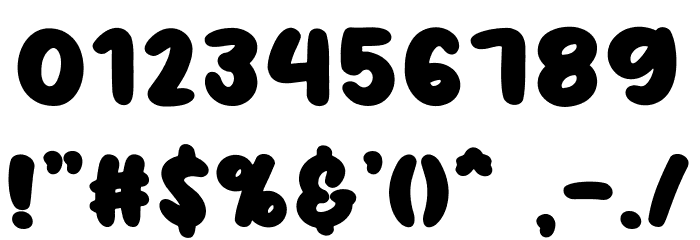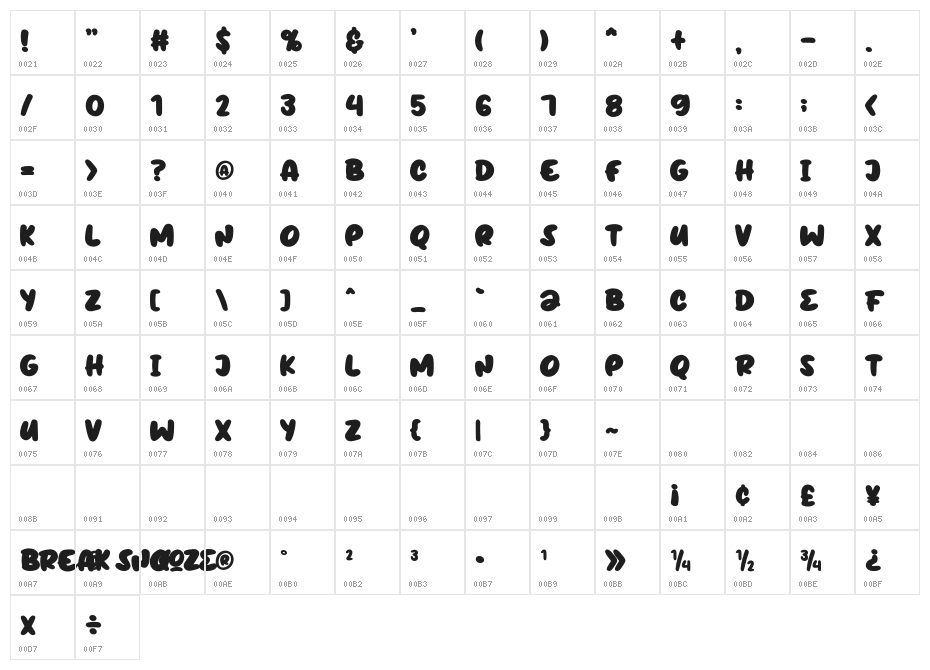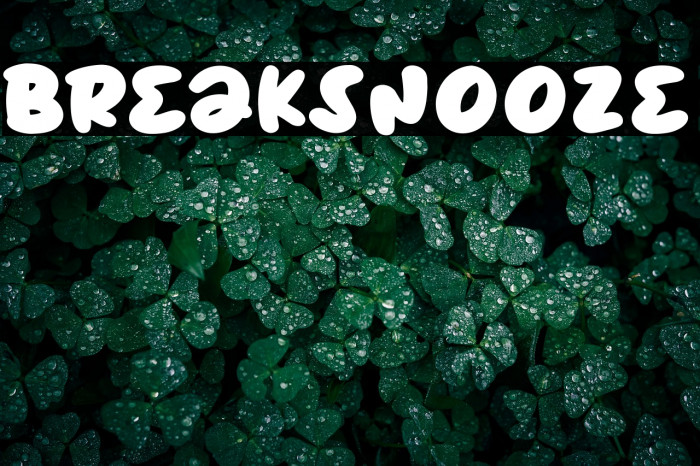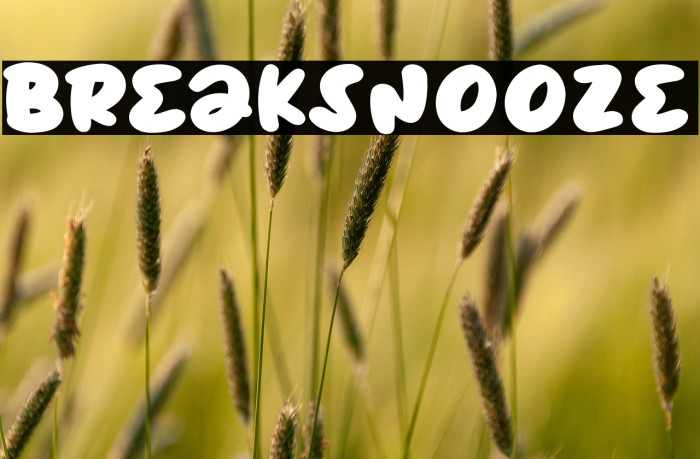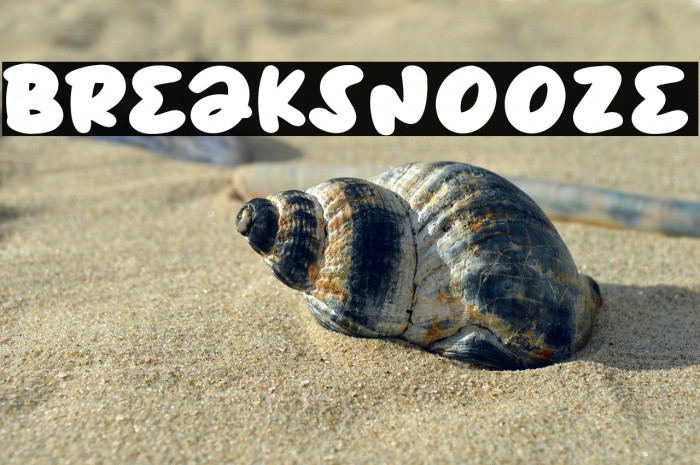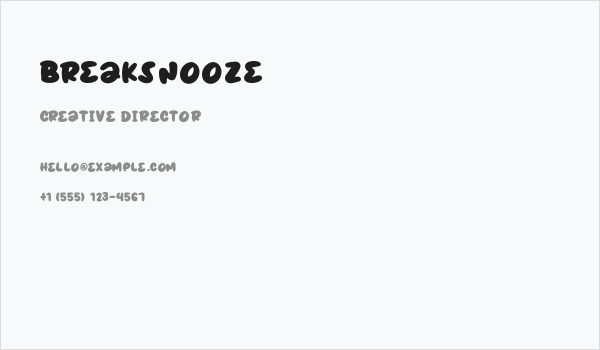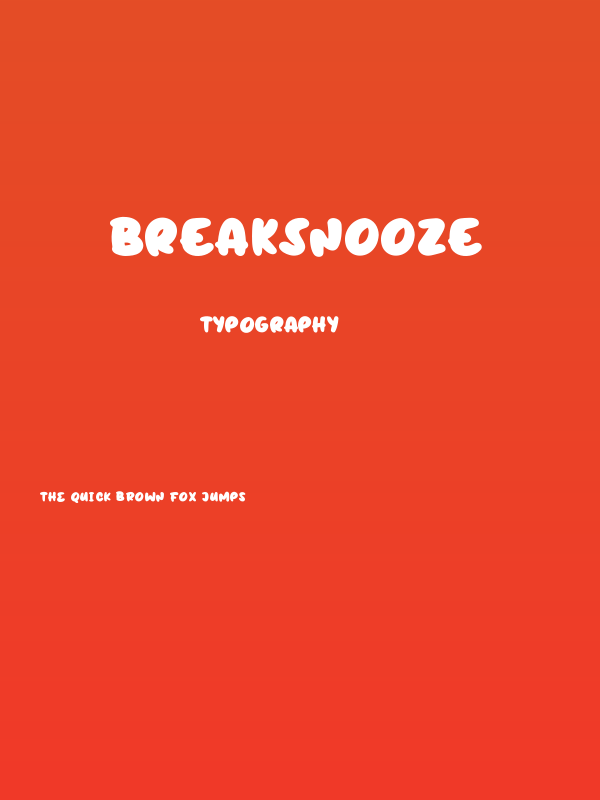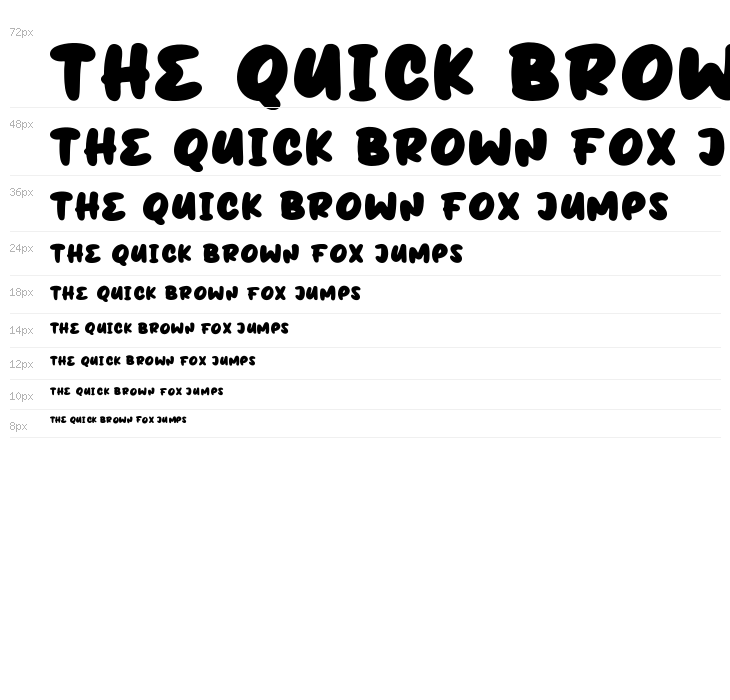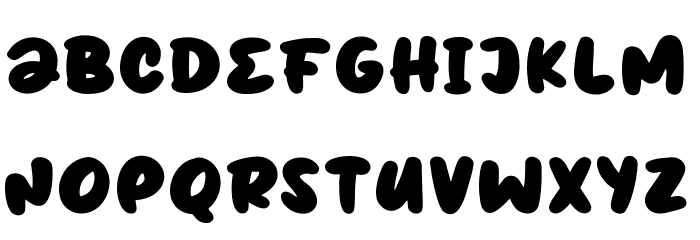
BreakSnooze Font
BreakSnooze Description
This playful and bold font features rounded, bubbly characters that exude a sense of fun and whimsy. The letters are thick and substantial, with a consistent stroke width that gives them a cartoonish and approachable appearance. The uppercase and lowercase letters maintain a uniform style, while the numbers and special characters are equally bold and rounded, ensuring a cohesive look across all text. The font's design is reminiscent of hand-drawn lettering, making it ideal for projects that require a friendly and informal touch. Its unique style is perfect for capturing attention and conveying a sense of joy and creativity.
| Overall Style | Playful, Cartoonish |